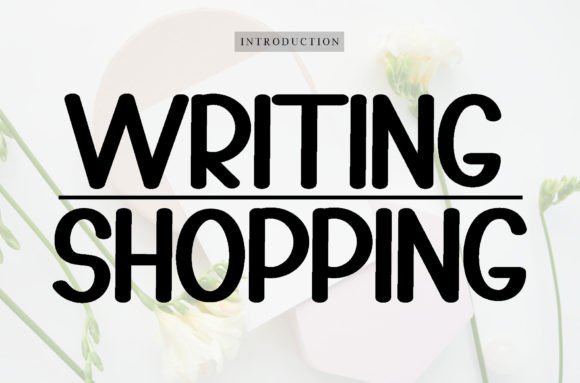
Prepare yourself to be awestruck by the Writing Shooping Font, a remarkable display font that will transform your Plasma Cutting projects into breathtaking masterpieces. This font, meticulously crafted by the skilled hands of Sansana, is a symphony of elegance and professionalism, poised to elevate your designs to new heights.
Immerse yourself in the captivating world of Writing Shooping, where your creativity will dance freely amidst its graceful curves and distinct edges. This font's essence lies in its ability to effortlessly convey a sense of sophistication and expertise, making it the perfect choice for projects that demand attention and leave a lasting impression.
Picture this: your Plasma Cutting projects adorned with the stunning Writing Shooping Font, commanding attention with its bold presence and captivating charm. From intricate logos that exude authority to eye-catching signage that draws customers in, this font has the power to transform the ordinary into the extraordinary.
Writing Shooping is more than just a font; it's an investment in your creative journey. Its versatility shines through in its seamless adaptability to a wide range of projects, from business cards that leave a lasting impression to brochures that captivate readers with their elegance.
So, embark on a creative adventure with Writing Shooping, the font that will redefine your Plasma Cutting projects. Let its brilliance elevate your designs to new heights, leaving a trail of admiration in its wake. Embrace the beauty of Writing Shooping and witness the transformation of your creative vision into a breathtaking reality.